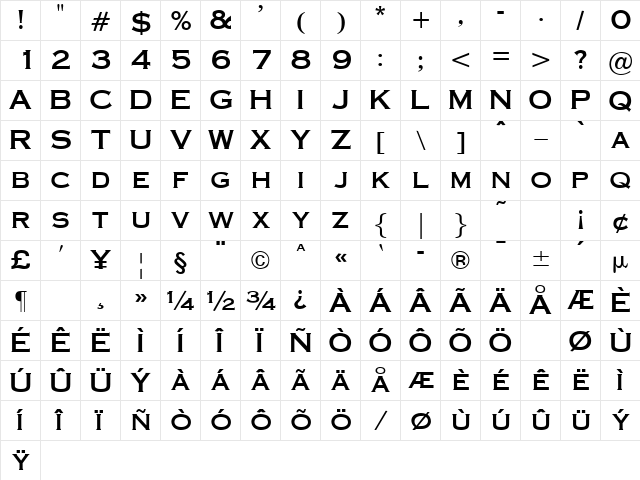
OCopperplate-Plain Plain
Design Context for OCopperplate-Plain Typeface
OCopperplate-Plain offers clean, dependable letterforms without strong stylistic allegiance, making it a practical choice for designers who need flexibility.